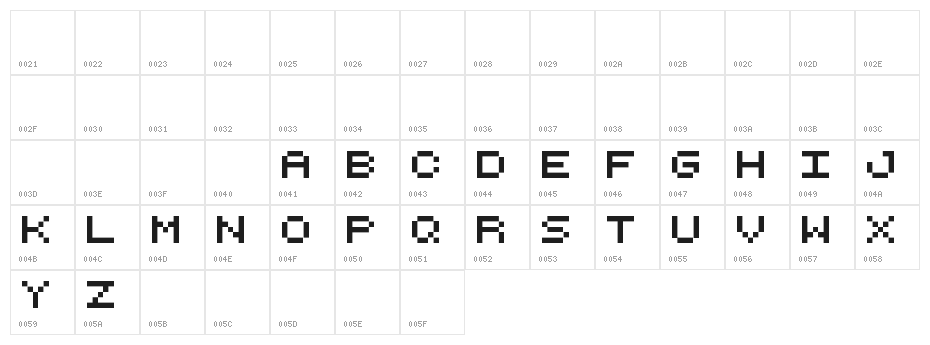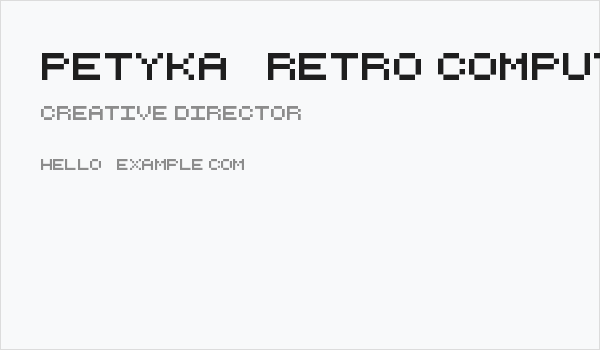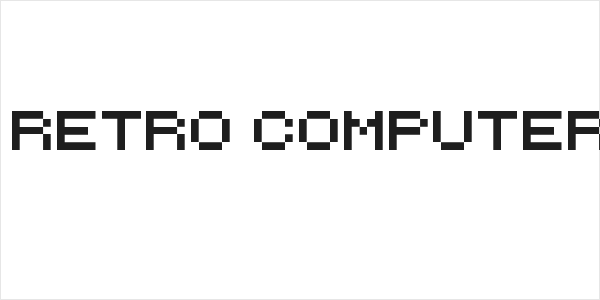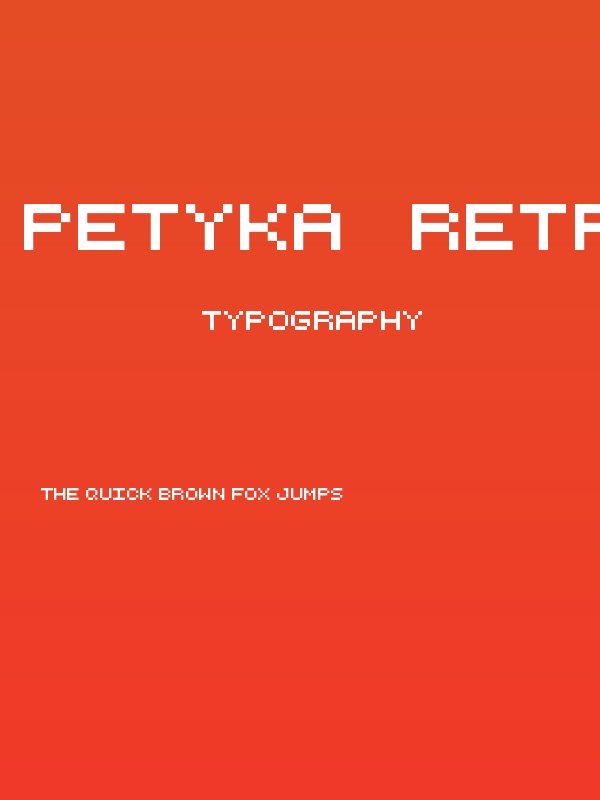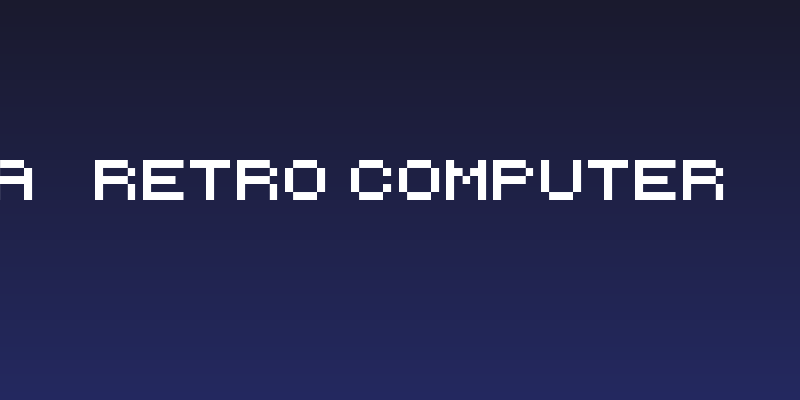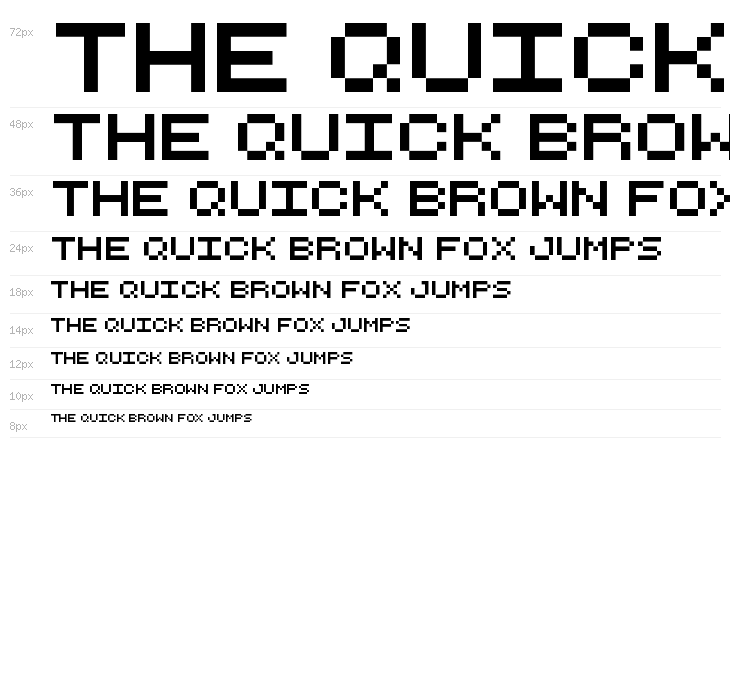
Petyka - Retro Computer___SHORT Font
This font embodies a retro, pixelated style reminiscent of early computer and video game graphics. Each character is constructed from a grid of square pixels, giving it a distinctly digital and nostalgic appearance. The uniformity and simplicity of the design evoke a sense of classic arcade games and vintage computing. The characters are monospaced, ensuring consistent spacing and alignment, which enhances readability in digital formats. The font's blocky structure and lack of curves contribute to its bold, straightforward aesthetic, making it ideal for projects that aim to capture a retro or tech-inspired look.
Proposed ProjectsIdeal for retro-themed designs, video game graphics, tech-inspired branding, and digital art projects.